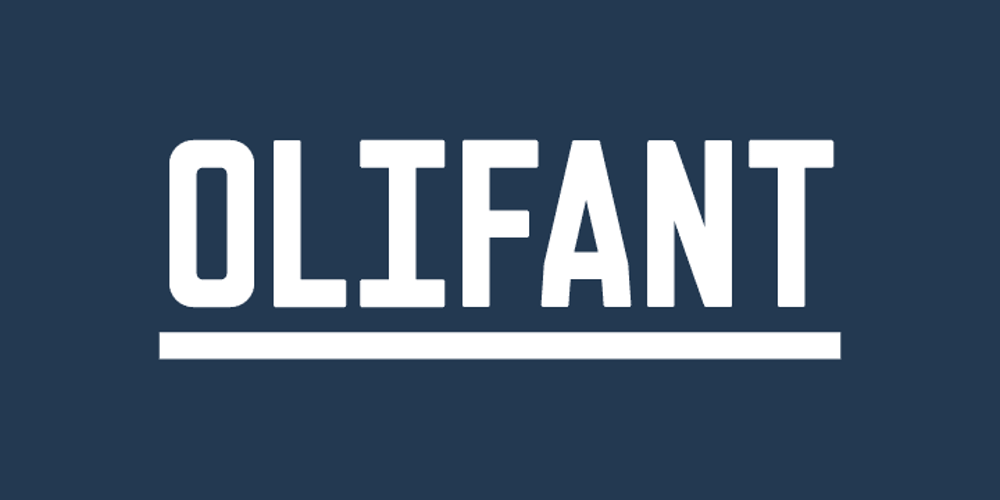
Olifant Font Family was designed by Aleksandra and Daniel Mizielińscy and published by Hipopotam Studio. Olifant contains 1 styles and family package options. Typeface originally designed as a monospace font (single standard width for all glyphs). We needed that for a project where letters stood directly above each other. Eventually it became proportional, and only the digits have a fixed width.